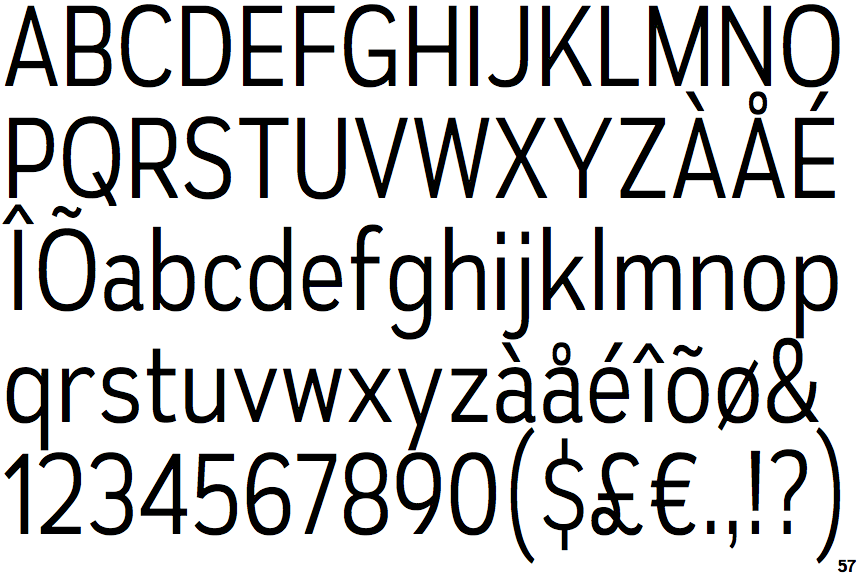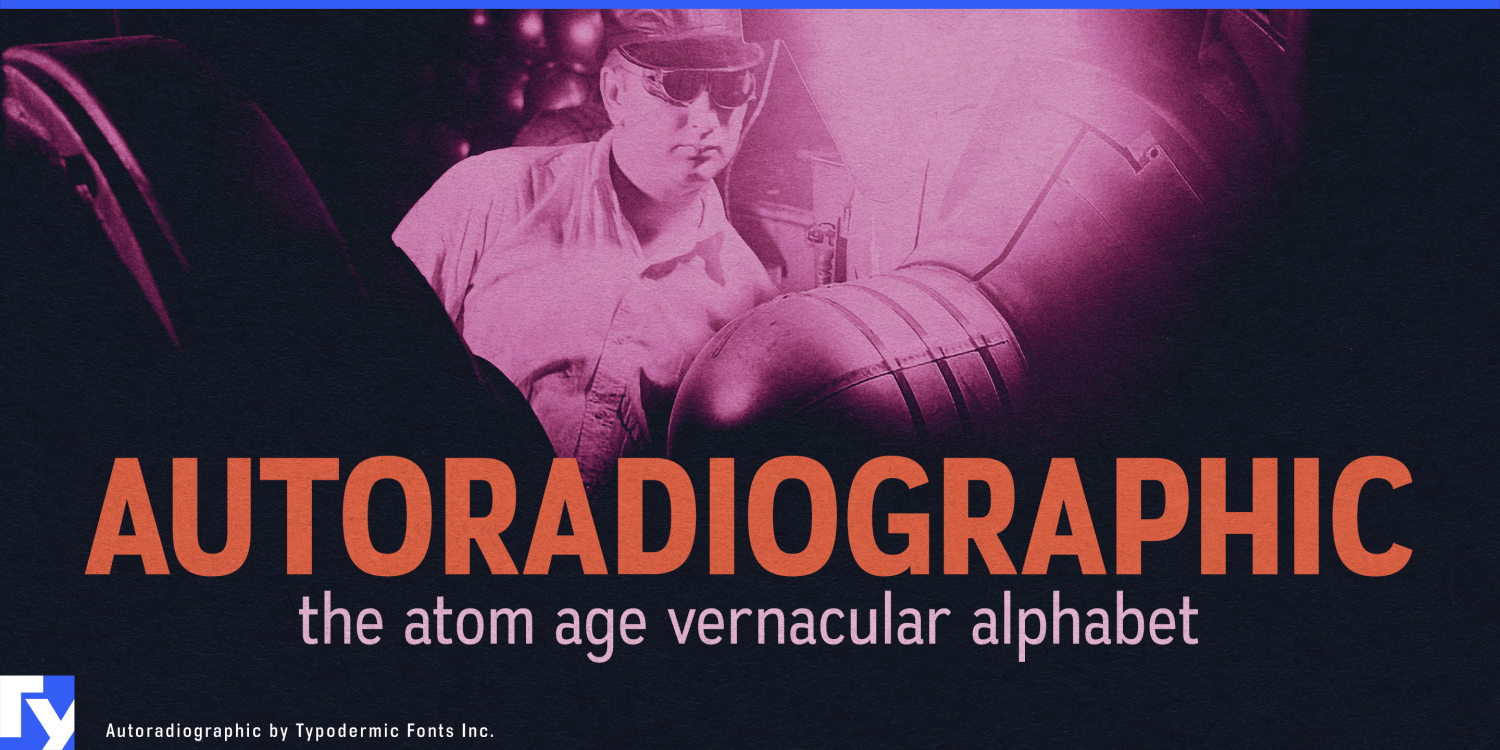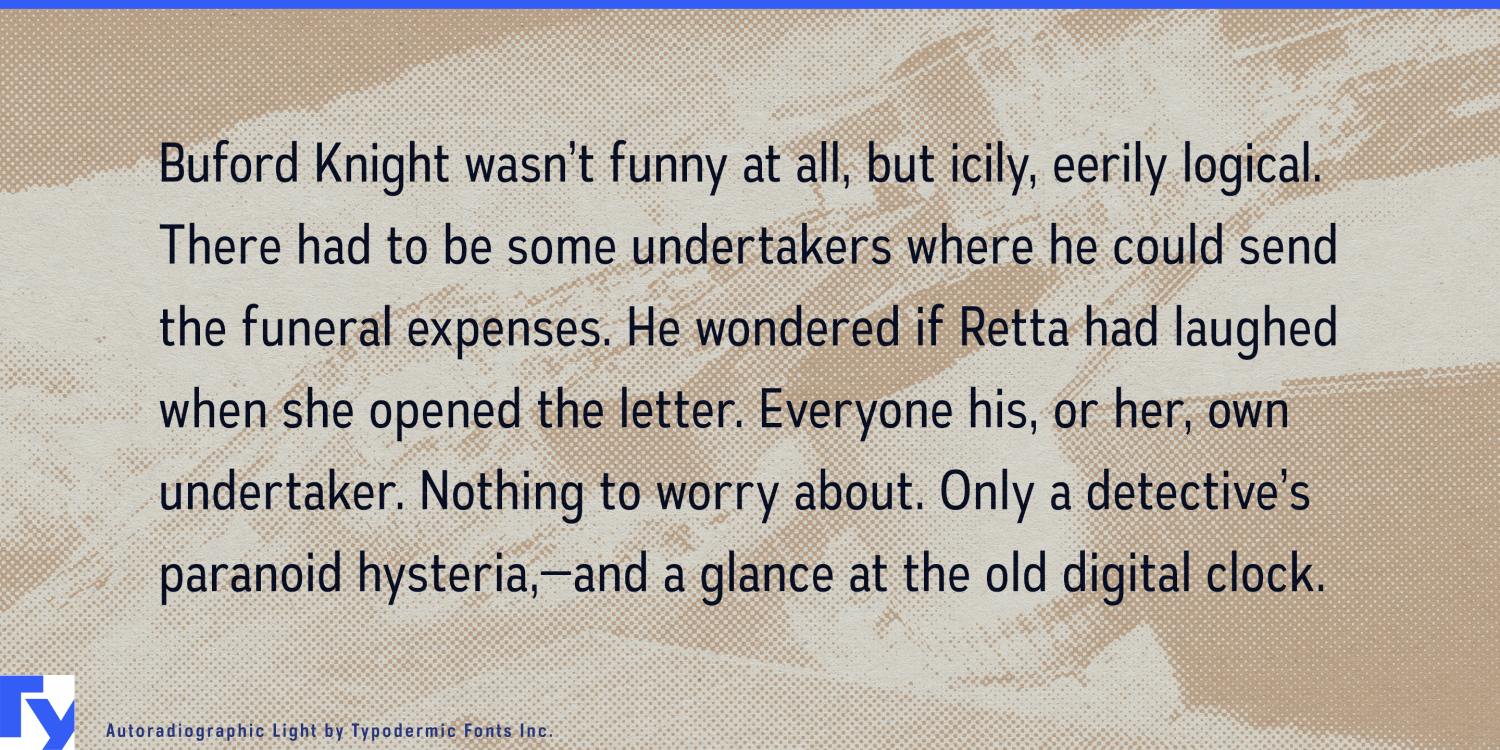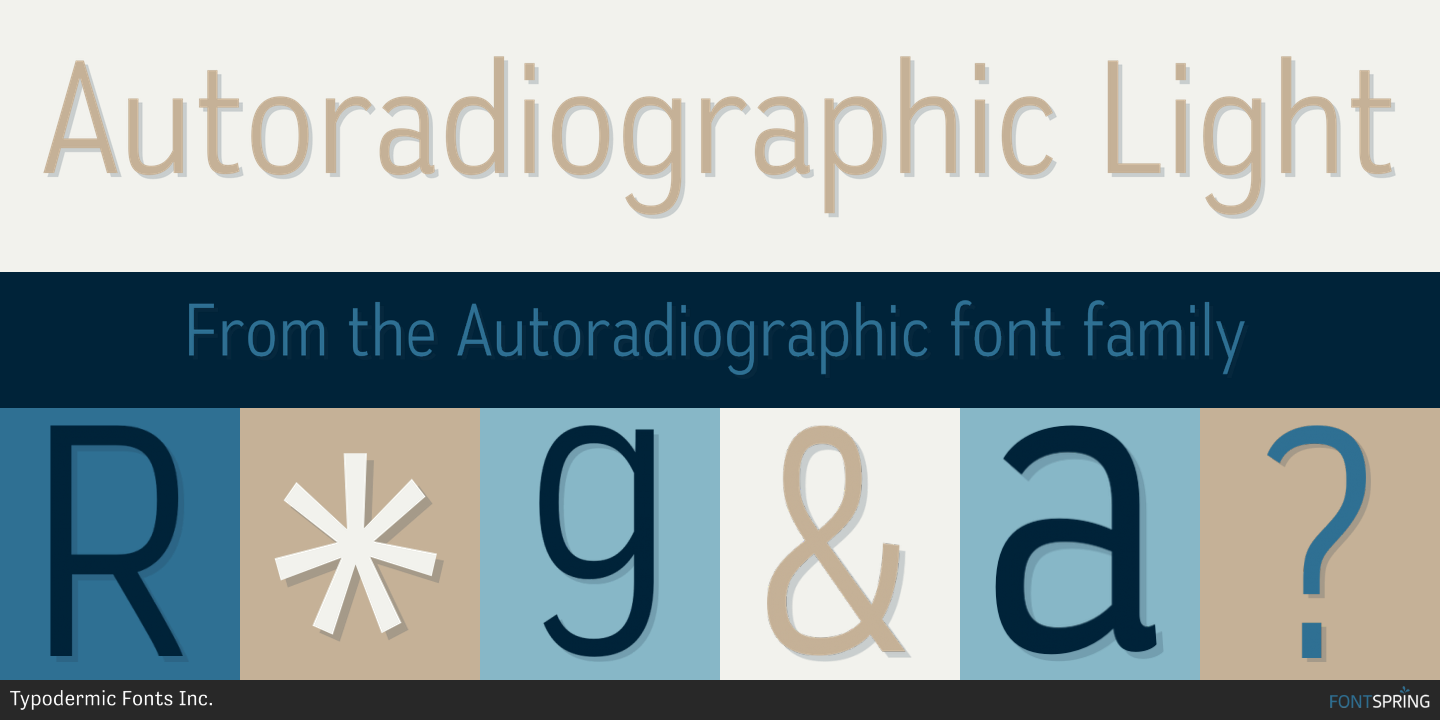
Autoradiographic Light Font . Have we got a typeface for you! Italics are narrow and loosely spaced. Don’t miss out on the chance. The autoradiographic font has been downloaded 22,253 times. It’s called autoradiographic, and it’s inspired by those. Download and install the autoradiographic font by typodermic fonts. Grab a copy of autoradiographic today—it comes in five weights and italics, so you’re sure to find just the right fit for your project. Italics are narrow and loosely spaced for extra emphasis. Grab a copy of autoradiographic today—it comes in five weights and italics, so you’re sure to find just the right fit for your project. Autoradiographic includes cyrillic, mathematical symbols, fractions, and the latest currency symbols. Autoradiographic includes cyrillic, mathematical symbols, fractions and the latest currency symbols.
Don’t miss out on the chance. The autoradiographic font has been downloaded 22,253 times. Grab a copy of autoradiographic today—it comes in five weights and italics, so you’re sure to find just the right fit for your project. Have we got a typeface for you! Italics are narrow and loosely spaced. Autoradiographic includes cyrillic, mathematical symbols, fractions, and the latest currency symbols. Autoradiographic includes cyrillic, mathematical symbols, fractions and the latest currency symbols. Download and install the autoradiographic font by typodermic fonts. Italics are narrow and loosely spaced for extra emphasis. It’s called autoradiographic, and it’s inspired by those.
Autoradiographic Light Font Don’t miss out on the chance. Autoradiographic includes cyrillic, mathematical symbols, fractions, and the latest currency symbols. Have we got a typeface for you! It’s called autoradiographic, and it’s inspired by those. Download and install the autoradiographic font by typodermic fonts. Italics are narrow and loosely spaced. Autoradiographic includes cyrillic, mathematical symbols, fractions and the latest currency symbols. Grab a copy of autoradiographic today—it comes in five weights and italics, so you’re sure to find just the right fit for your project. Italics are narrow and loosely spaced for extra emphasis. The autoradiographic font has been downloaded 22,253 times. Grab a copy of autoradiographic today—it comes in five weights and italics, so you’re sure to find just the right fit for your project.
Autoradiographic font Autoradiographic Light Font Italics are narrow and loosely spaced. It’s called autoradiographic, and it’s inspired by those. Autoradiographic includes cyrillic, mathematical symbols, fractions and the latest currency symbols. Italics are narrow and loosely spaced for extra emphasis. The autoradiographic font has been downloaded 22,253 times. Grab a copy of autoradiographic today—it comes in five weights and italics, so you’re sure to find just. Autoradiographic Light Font.
Identifont Autoradiographic Light Font The autoradiographic font has been downloaded 22,253 times. Autoradiographic includes cyrillic, mathematical symbols, fractions and the latest currency symbols. It’s called autoradiographic, and it’s inspired by those. Download and install the autoradiographic font by typodermic fonts. Grab a copy of autoradiographic today—it comes in five weights and italics, so you’re sure to find just the right fit for your project.. Autoradiographic Light Font.
Autoradiographic Typodermic Fonts Autoradiographic Light Font Download and install the autoradiographic font by typodermic fonts. Italics are narrow and loosely spaced for extra emphasis. Grab a copy of autoradiographic today—it comes in five weights and italics, so you’re sure to find just the right fit for your project. The autoradiographic font has been downloaded 22,253 times. It’s called autoradiographic, and it’s inspired by those. Autoradiographic includes. Autoradiographic Light Font.
Autoradiographic Font Family by Typodermic Font Bros Autoradiographic Light Font Download and install the autoradiographic font by typodermic fonts. Autoradiographic includes cyrillic, mathematical symbols, fractions and the latest currency symbols. The autoradiographic font has been downloaded 22,253 times. Grab a copy of autoradiographic today—it comes in five weights and italics, so you’re sure to find just the right fit for your project. Grab a copy of autoradiographic today—it comes in. Autoradiographic Light Font.
Code Pro Light font Autoradiographic Light Font Download and install the autoradiographic font by typodermic fonts. Have we got a typeface for you! The autoradiographic font has been downloaded 22,253 times. Don’t miss out on the chance. Autoradiographic includes cyrillic, mathematical symbols, fractions, and the latest currency symbols. Grab a copy of autoradiographic today—it comes in five weights and italics, so you’re sure to find just the. Autoradiographic Light Font.
Autoradiographic Font Vectordad Autoradiographic Light Font The autoradiographic font has been downloaded 22,253 times. Download and install the autoradiographic font by typodermic fonts. Grab a copy of autoradiographic today—it comes in five weights and italics, so you’re sure to find just the right fit for your project. Don’t miss out on the chance. It’s called autoradiographic, and it’s inspired by those. Have we got a typeface. Autoradiographic Light Font.
Autoradiographic Typodermic Fonts Autoradiographic Light Font Grab a copy of autoradiographic today—it comes in five weights and italics, so you’re sure to find just the right fit for your project. Have we got a typeface for you! Autoradiographic includes cyrillic, mathematical symbols, fractions and the latest currency symbols. The autoradiographic font has been downloaded 22,253 times. It’s called autoradiographic, and it’s inspired by those. Download and. Autoradiographic Light Font.
Free font "Autoradiographic" by Typodermic Fonts Autoradiographic Light Font Italics are narrow and loosely spaced. Italics are narrow and loosely spaced for extra emphasis. Autoradiographic includes cyrillic, mathematical symbols, fractions and the latest currency symbols. Grab a copy of autoradiographic today—it comes in five weights and italics, so you’re sure to find just the right fit for your project. The autoradiographic font has been downloaded 22,253 times. Have we. Autoradiographic Light Font.